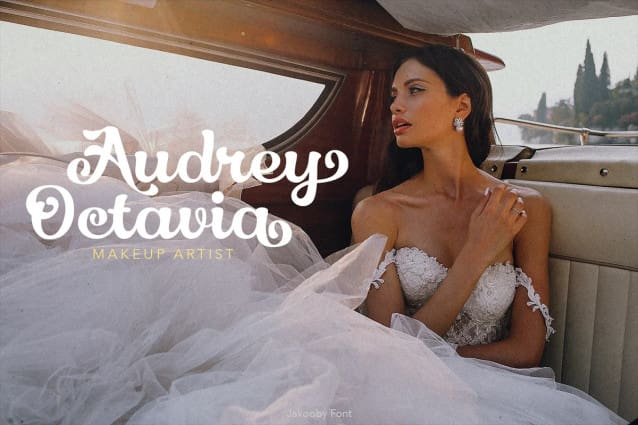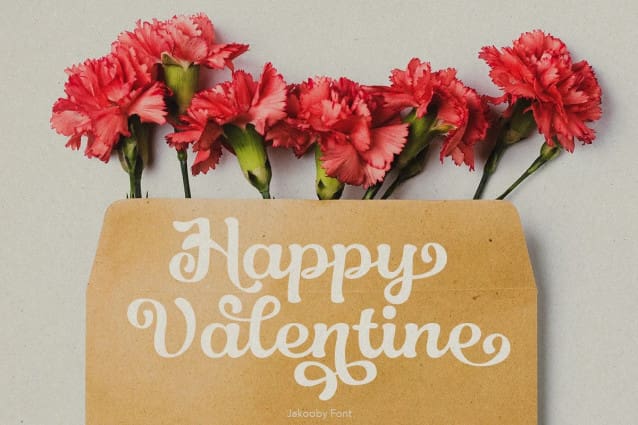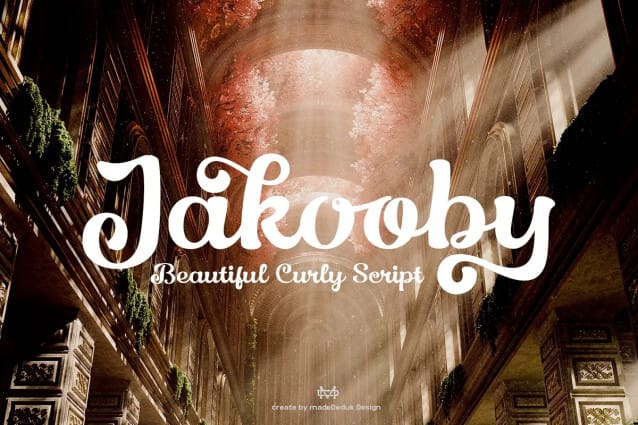
Jakooby Script Font
Jakooby Script Font is a retro script font. Comes with curly style with much alternative and ligature. This font perfect for poster design, book covers, merchandise, fashion brands, advertising, magazines, album covers, wedding invitation and more.